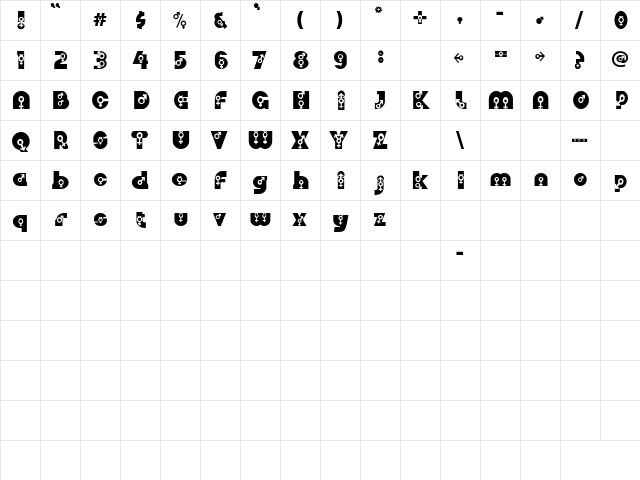
Him_Her_It Regular
| Designer | Andrea Steffen |
Design Context for Him_Her_It Typeface
Him_Her_It is a composed and adaptable typeface that performs quietly and consistently across a wide range of design contexts.